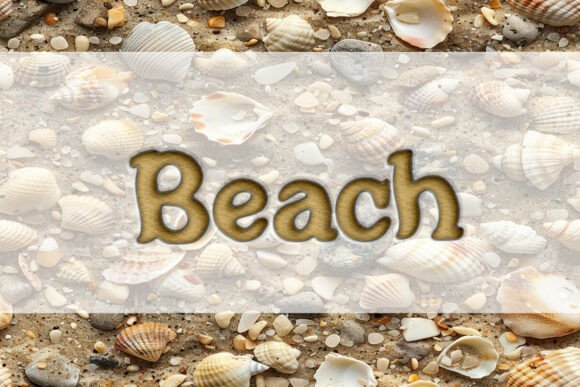
Find Your Coastal Inspiration with Beach Font
Who doesn’t love the feeling of walking along a sun-kissed beach, feeling the sand between their toes and the cool ocean breeze in their hair? For many of us, it’s the perfect creative spark that sets our imagination ablaze. And what better way to capture that carefree spirit than with a font that embodies the essence of the coast?
Enter Beach Font, a typography effect that’s expertly crafted to elevate your designs with a touch of coastal charm. Whether you’re working on a project for a magazine, a greeting card, or even a simple social media post, Beach Font is the perfect addition to bring a relaxed, summery vibe to your work. Its versatility and charm make it a valuable tool for designers, allowing you to infuse your creations with a sense of freedom and adventure.
- Unique Characteristics: Beach Font features a distressed, hand-painted look with subtle texture and imperfections, evoking a sense of nostalgia and casual elegance.
- Font Family: Beach Font is a single-family font with multiple weights and styles, including Regular, Bold, and Italic.
- Kerning and Ligatures: Beach Font includes advanced kerning and ligature pairs to ensure smooth text rendering and a polished appearance.
Designer Review: Beach Font
Overall, I think Beach Font is a unique and visually appealing font. ✨ The subtle wave-like texture adds a nice organic feel to any design. The font’s casual and relaxed vibe is perfect for summer-themed projects, beach-inspired branding, or even surfing-related merchandise. ✨ The font’s readability is also good, making it suitable for body text.
However, there are a few limitations that I’d like to point out. ⚠️ First, the font’s texture can sometimes make it difficult to read in certain situations, especially when the text is small or the background is complex. Additionally, the font may not be the best choice for formal or professional designs, as it can come across as too casual. ⚠️ Lastly, the font family is relatively small, with only a few weights and styles available.
In terms of overall impression, I think Beach Font is a great addition to any designer’s toolkit. While it may not be the most versatile font, it’s perfect for specific projects that require a relaxed, beachy vibe. With a little creativity, you can create some amazing designs using this font.
- Use Beach Font for summer-themed projects, beach-inspired branding, or surfing-related merchandise.
- Avoid using Beach Font for formal or professional designs.
- Be mindful of text size and background complexity to ensure readability.
- Consider combining Beach Font with other fonts to add more visual interest.
To get the most out of Beach Font, use it in conjunction with calming colors and imagery.
Experiment with different font styles and sizes to create a unique design.
Use Beach Font to add a sense of relaxation to your designs, perfect for beach-themed projects or wellness-related content.
Beach Font is ideal for:
- Beach-themed designs, such as posters or brochures.
- Wellness-related content, like yoga or meditation projects.
- Summer-themed designs, like party invitations or social media graphics.